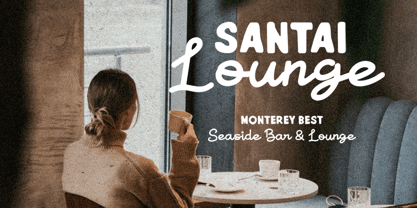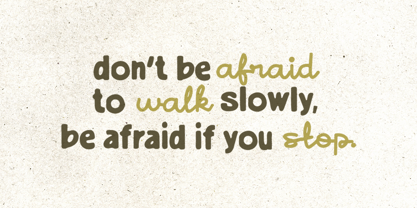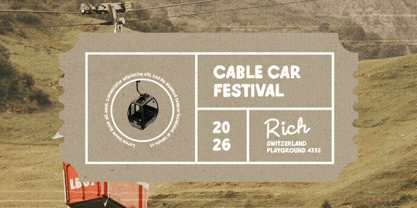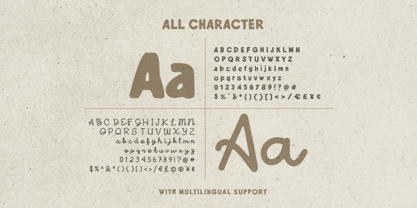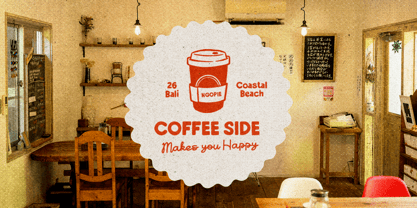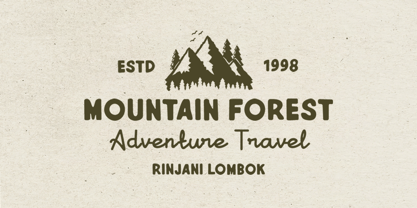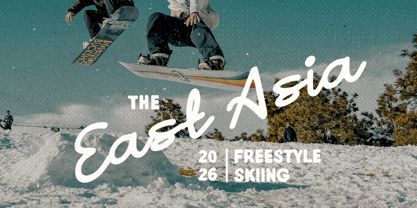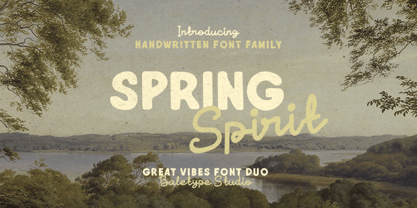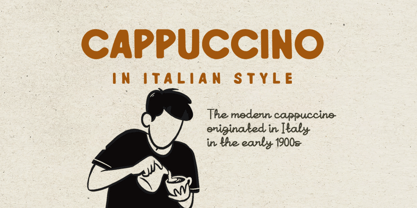
Spring Spirit
by Bale Type
The Spring Spirit Font Family was designed by Albin Pawaz and published by Bale Type. Spring Spirit contains 2 styles and family package options. More about this family
Spring Spirit is a charming handwritten font duo that combines a bold sans serif with a smooth monoline script, creating a versatile and visually appealing pairing. With this pack of two complementary fonts, you have the flexibility to mix and match styles for a wide range of creative purposes, including logotypes, quotes, branding, packaging, social media designs, and any project that calls for a natural handmade touch. The contrast between the strong, clean sans serif and the elegant flowing script adds depth and personality to your designs, making them stand out effortlessly. In addition, this font duo supports multiple languages, allowing you to use it confidently across diverse audiences and global projects.
Designers: Albin Pawaz
Foundry: Bale Type